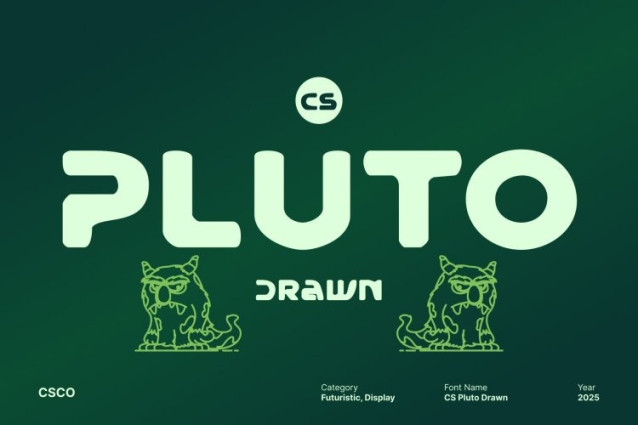
CS Pluto Drawn Font Futuristic and sleek, this sci-fi game font combines techno-inspired geometry with sharp, angular edges. Its bold and modern forms create a high-tech aesthetic that instantly communicates innovation, energy, and a cutting-edge visual identity, perfect for projects that demand a futuristic feel.
Artistic Drawn Effect for Unique Visual Flair
The drawn effect adds an artistic, handcrafted layer to the font, softening its mechanical precision while enhancing its futuristic personality. Each letter feels dynamic and visually engaging, giving your designs an expressive, otherworldly presence.
Perfect for Video Games, Cyber Interfaces, and Movie Branding
Ideal for video game titles, sci-fi interfaces, futuristic posters, or movie branding, this font delivers a striking, modern appearance. Its combination of precise geometry and artistic drawn detail ensures that your designs feel immersive, bold, and visually captivating.
Futuristic, Bold, and Visually Dynamic
By blending techno-geometric structure with a handcrafted drawn effect, this font offers a typeface that is both sleek and expressive. It’s the perfect choice for designers seeking a futuristic, artistic, and visually impactful font for sci-fi and high-tech creative projects.